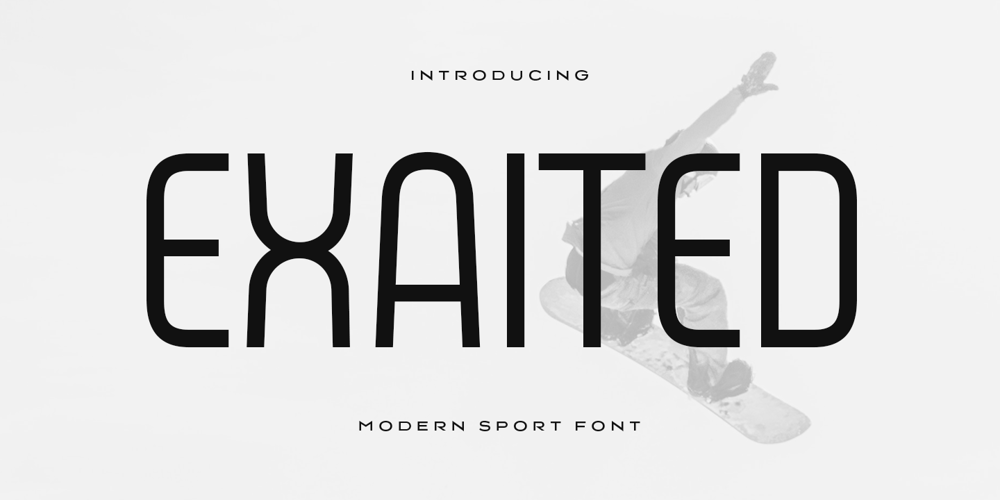
Exited
Exited font
Exited Font Family was designed by Zamroni Hamzah and published by Sensatype Studio. Exited contains 1 styles and family package options. A Modern Sport Font that perfect for technology, sport, racing, action design project.A new Sans Serif Font that we created special for Headline, Title and more stand out typography needs that will add your variations. It’s so perfect to add your style and headline overview. And specially for Headline font, we crafted for futuristic style and modern feels so enjoy to create any project that will show your main idea out.Exited Modern Sport Font ready with: Any options to get creative variations Preview as a inspirations that you can do with Exited font Ready with All Uppercase characters Wish you enjoy our font. 🙂